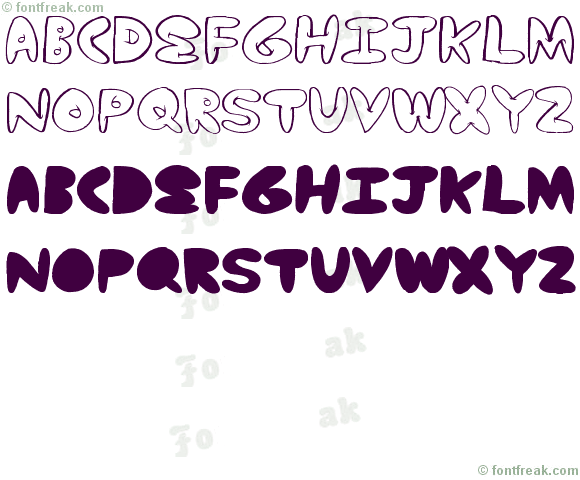
Yummy Nubs
About Yummy Nubs
Yummy Nubs by Xerographer Fonts is a delightful display typeface that exudes a playful and whimsical charm. This font, characterized by its rounded and soft forms, features a unique design that mimics the appearance of playful, hand-drawn letters. The stroke weight varies slightly, offering a friendly and approachable vibe, while the low contrast between thick and thin lines enhances its legibility. The letters are generously spaced, creating a sense of openness that invites viewers in.
This font is an excellent choice for a variety of creative projects. Its cheerful aesthetic makes it perfect for children's book covers, where it can capture the imagination of young readers. Yummy Nubs is also ideal for designing vibrant restaurant menus that entice diners with its fun and appetizing appeal. Additionally, it can be used for eye-catching promotional materials such as flyers or banners for local events, adding a touch of friendliness to the overall design. Graphic designers will find it particularly useful for creating engaging social media graphics that stand out in crowded feeds, making it a favorite among content creators.
Targeted towards graphic designers, small business owners, and creative enthusiasts, Yummy Nubs offers a unique solution for those looking to add a dash of personality to their designs. Its playful nature can elevate branding efforts, making a memorable impact on potential customers.
What truly sets the Yummy Nubs font apart is its ability to evoke joy and creativity. As a freeware typeface, it makes high-quality design accessible to everyone. Whether you are crafting a lighthearted invitation or a vibrant poster, Yummy Nubs font free download ensures that your projects will have a distinctive and inviting touch that resonates with your audience.